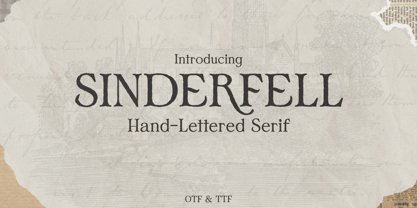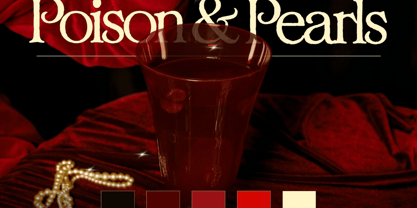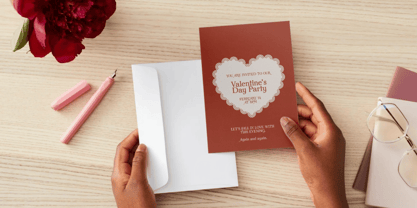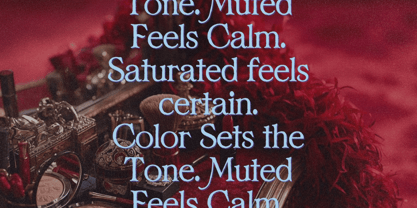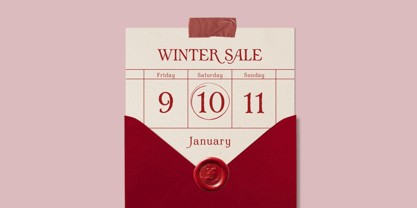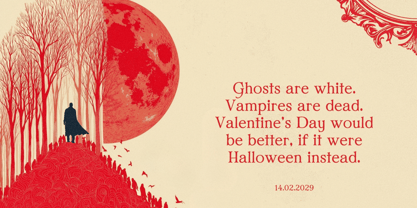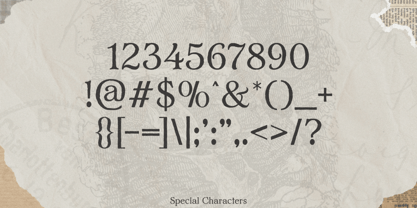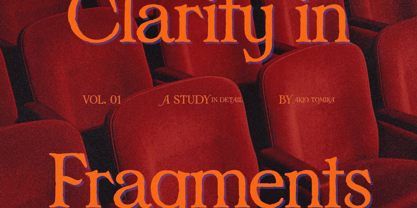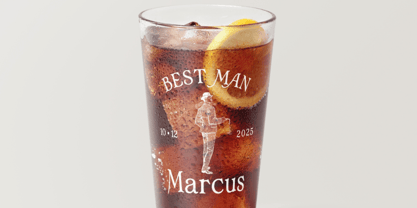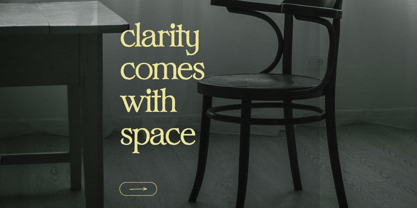
Sinderfell
The Sinderfell Font Family was designed by Igor Ovsyannykov and published by Hipfonts. Sinderfell contains 1 styles. More about this family
Introducing Sinderfell, a vintage hand-lettered serif typeface crafted with authenticity, warmth, and timeless character. Carefully drawn by hand, every letter carries subtle imperfections, organic textures, and natural edge variations that give the font a genuinely human feel—far removed from overly polished digital typography.
Inspired by antique signage, old book covers, faded packaging, heritage branding, and traditional printmaking, Sinderfell captures the raw beauty of classic craftsmanship while remaining elegant, readable, and highly versatile. Its imperfect details create a rich vintage atmosphere that instantly adds soul, nostalgia, and handcrafted charm to any design.
Perfect for logos, whiskey labels, coffee packaging, editorial layouts, apparel, posters, branding, book covers, rustic wedding invitations, social media graphics, and artisan product designs, Sinderfell delivers an authentic old-world aesthetic with modern usability.
Rugged yet refined. Imperfect yet beautiful. Sinderfell is made for designers who appreciate typography with true character.